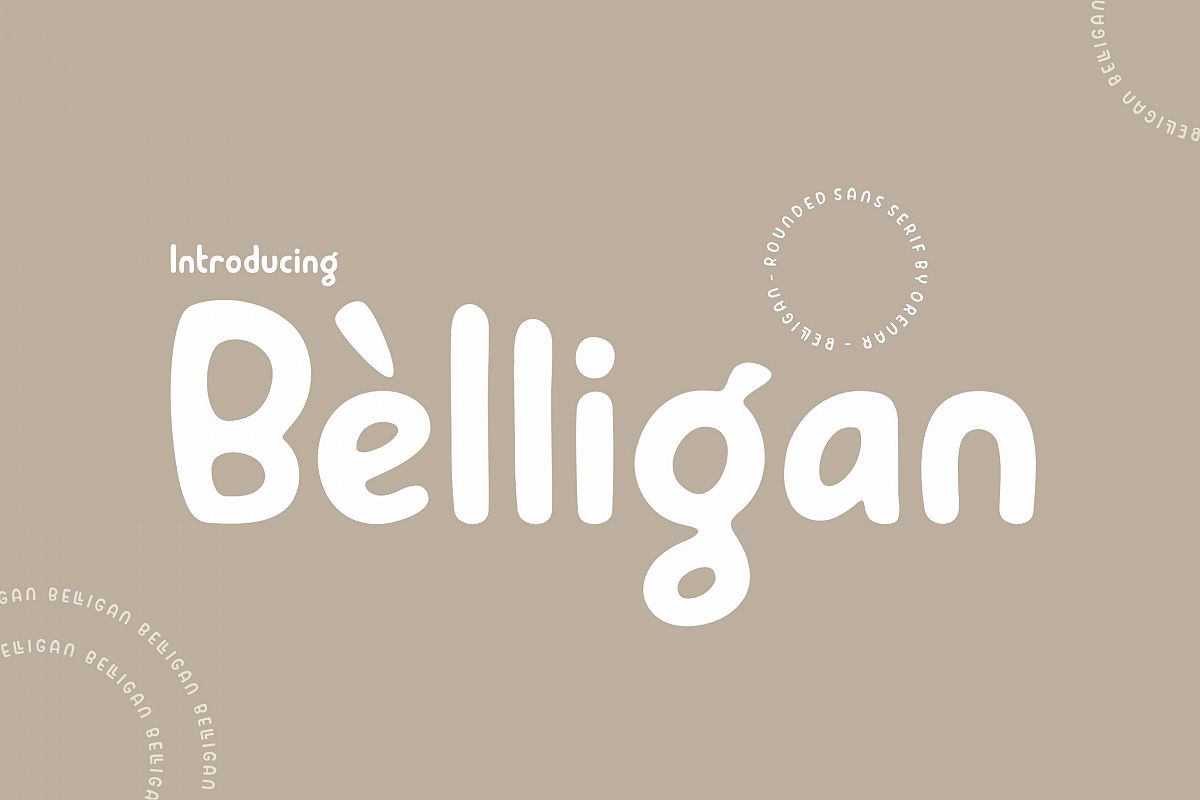
Belligan
Belligan is rounded sans serif which looks calm, feminime yet elegant. Belligan is perfect for your next project,
if your project is decided to be simple, modern, clean, and proffesional touch.
Belligan Feature:
• All Character A-Z, a-z, numerial & punctuation.
• Ligatures (BB, CC, DD, EE, FF, GG, LL, MM, NN, OO, PP, RR, SS, TT, Th, ZZ, bb, cc, dd, ee, ff, fi, gg, ll, mm, nn, oo, pp, rr, ss, tt, ti, zz)
• Multilingual Support.